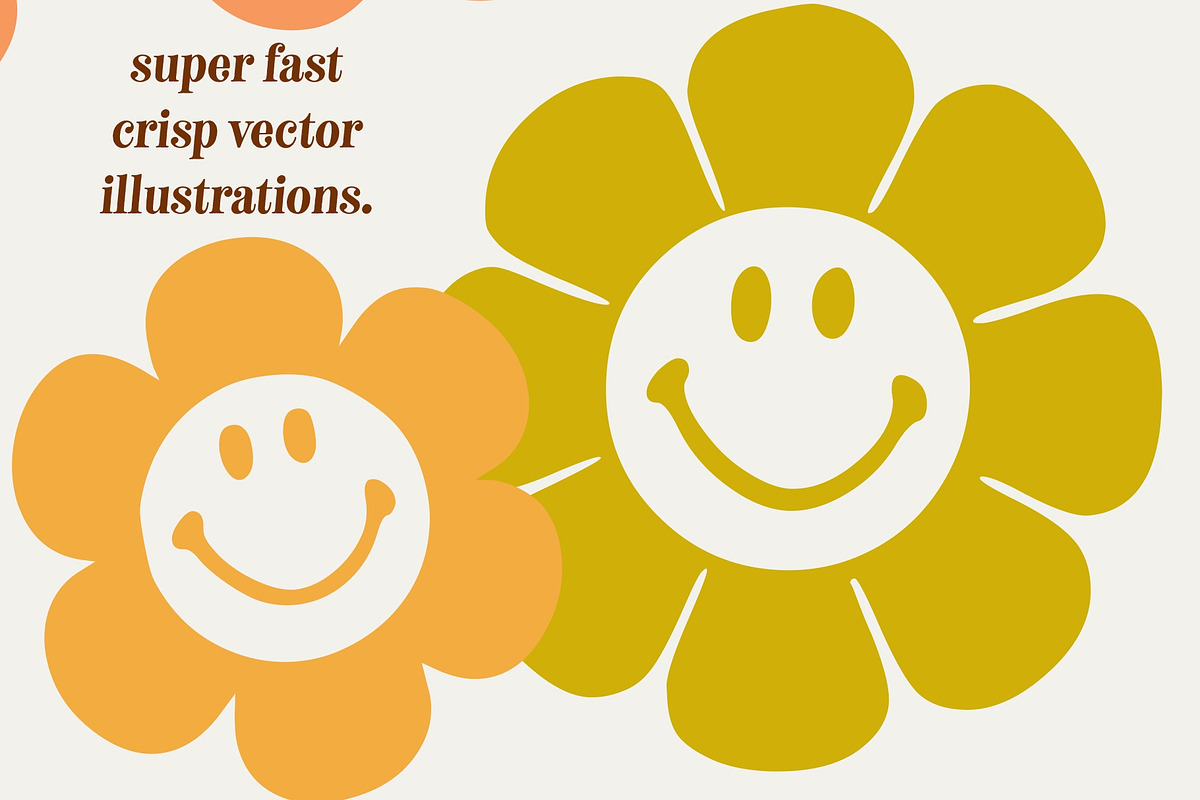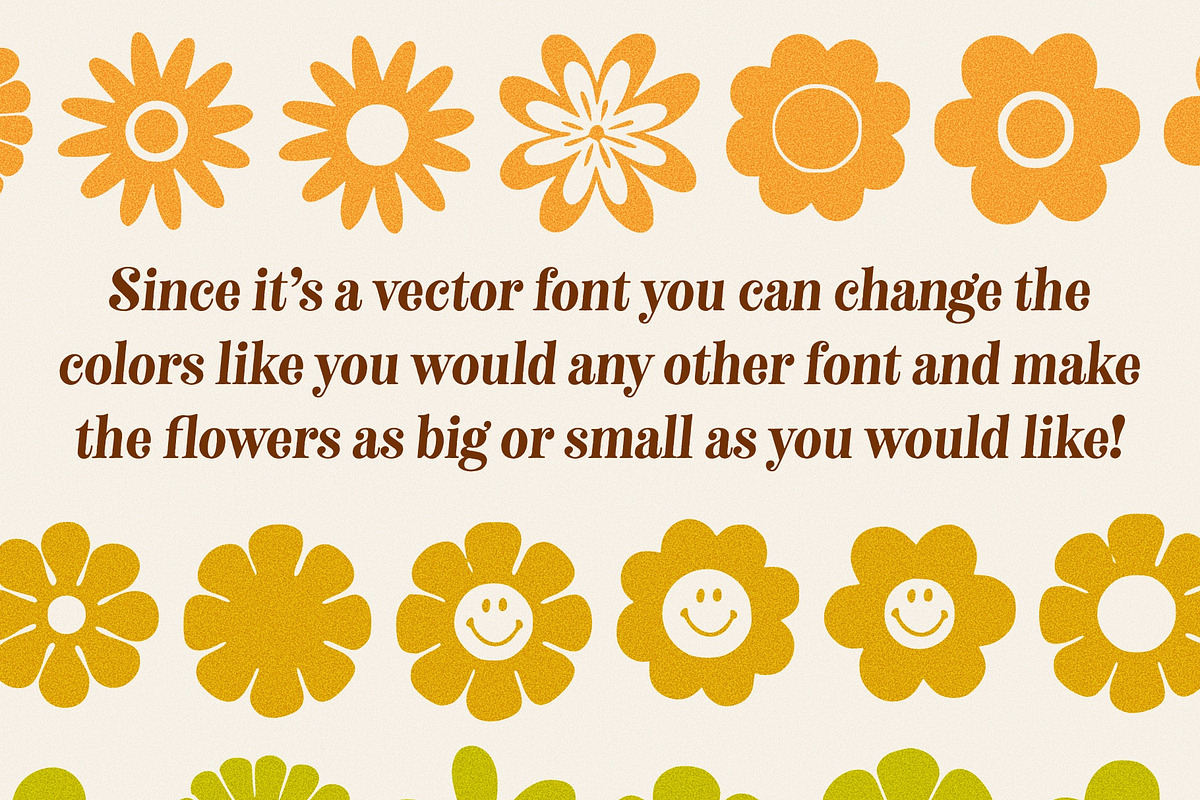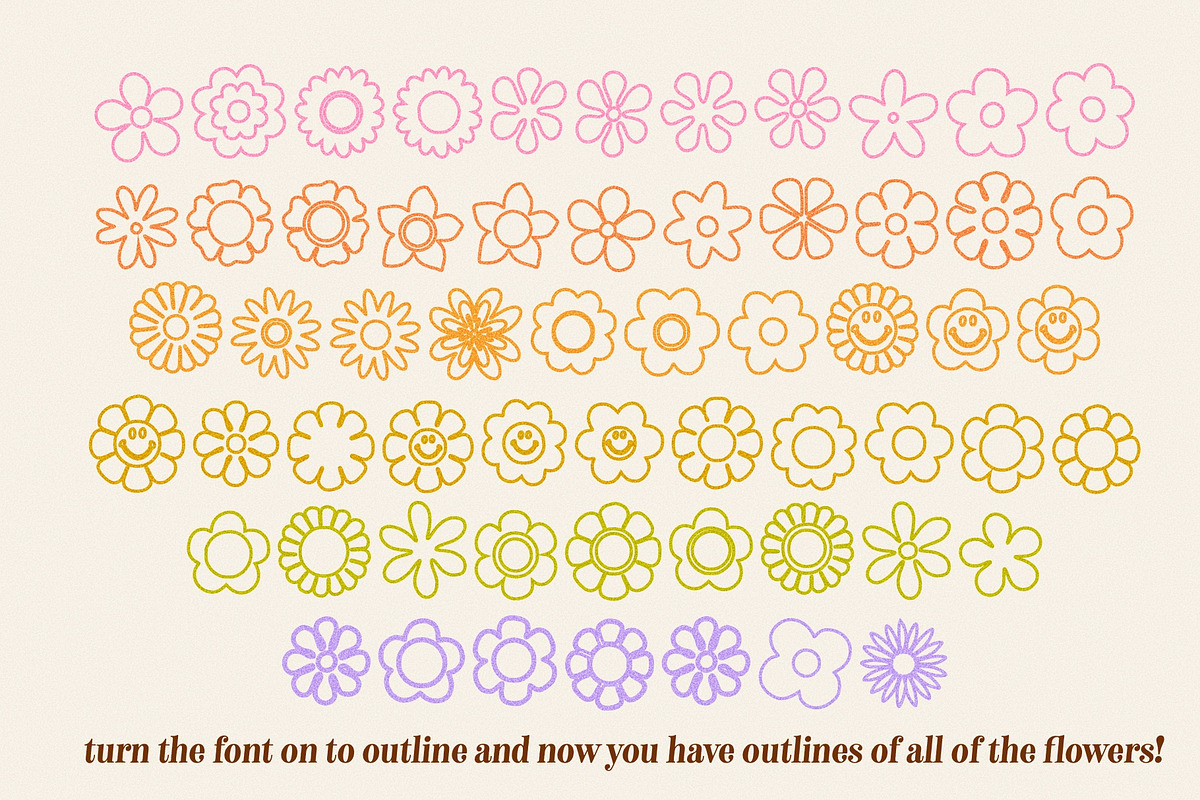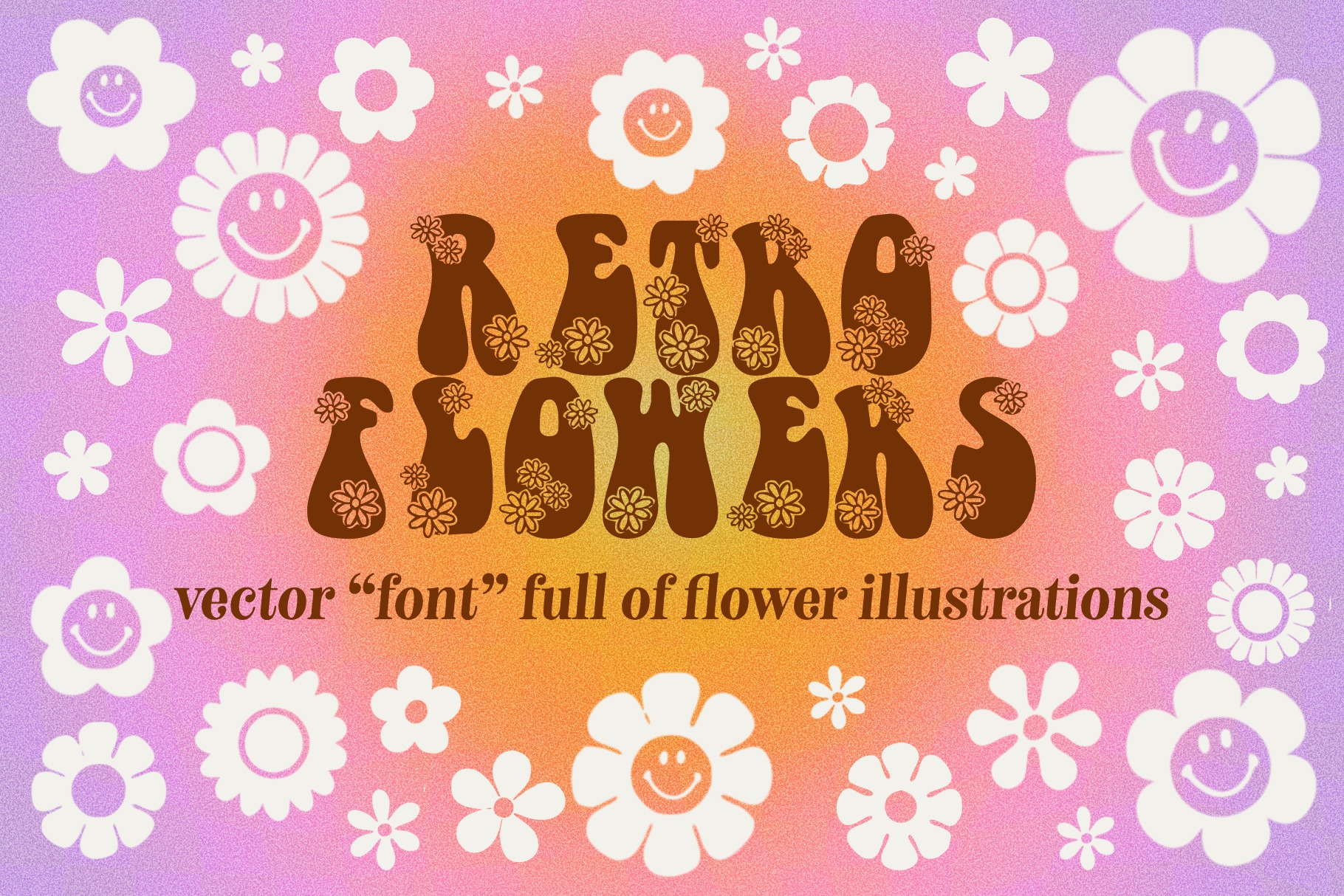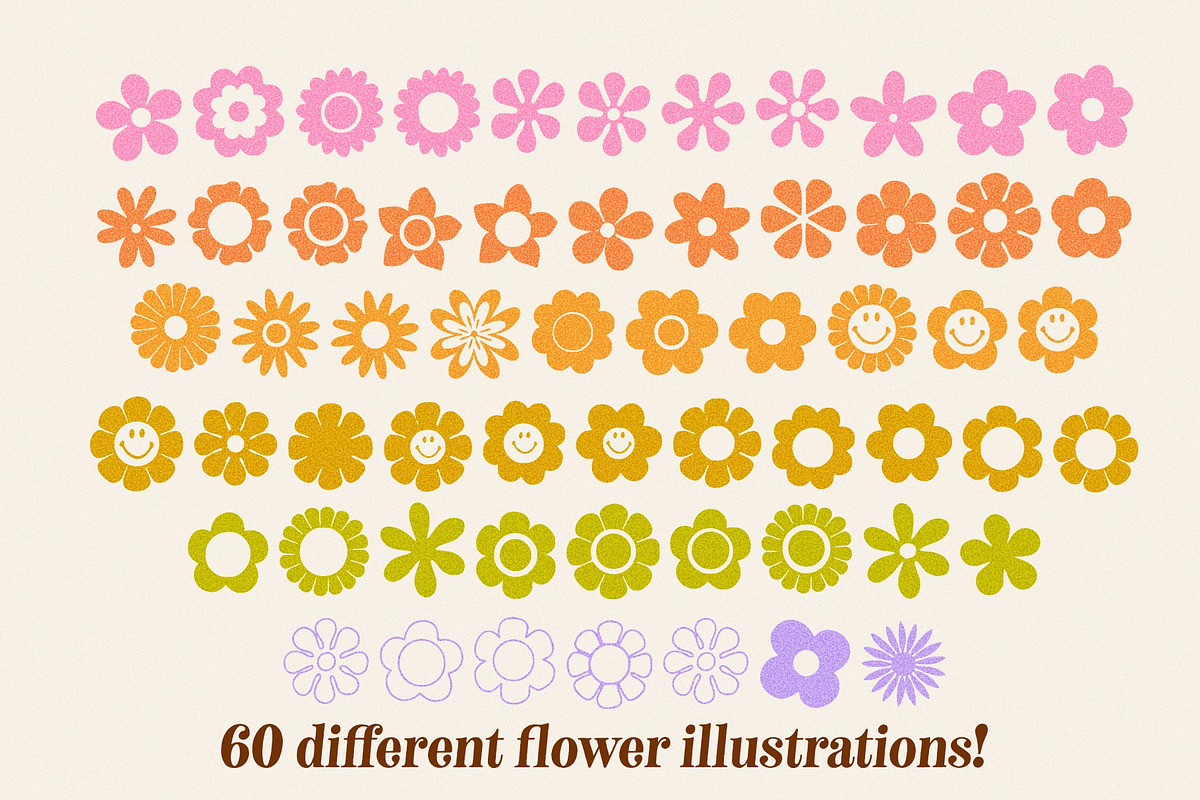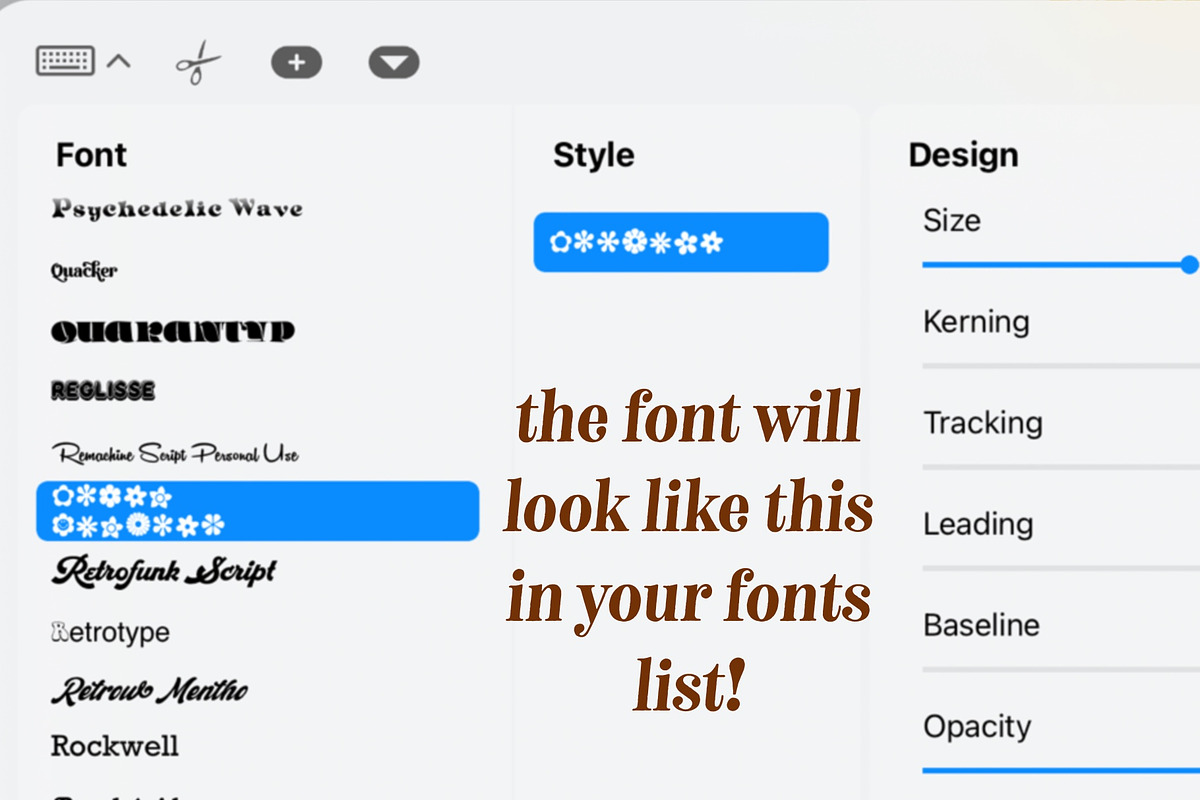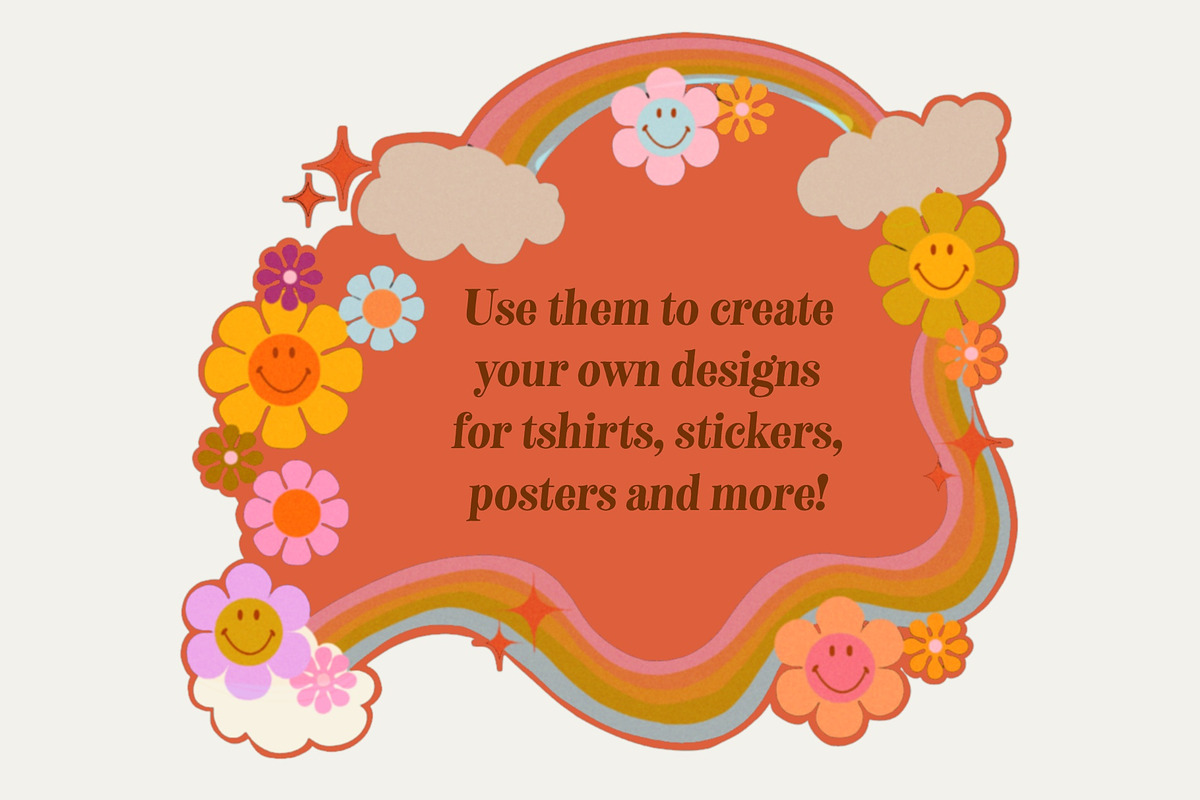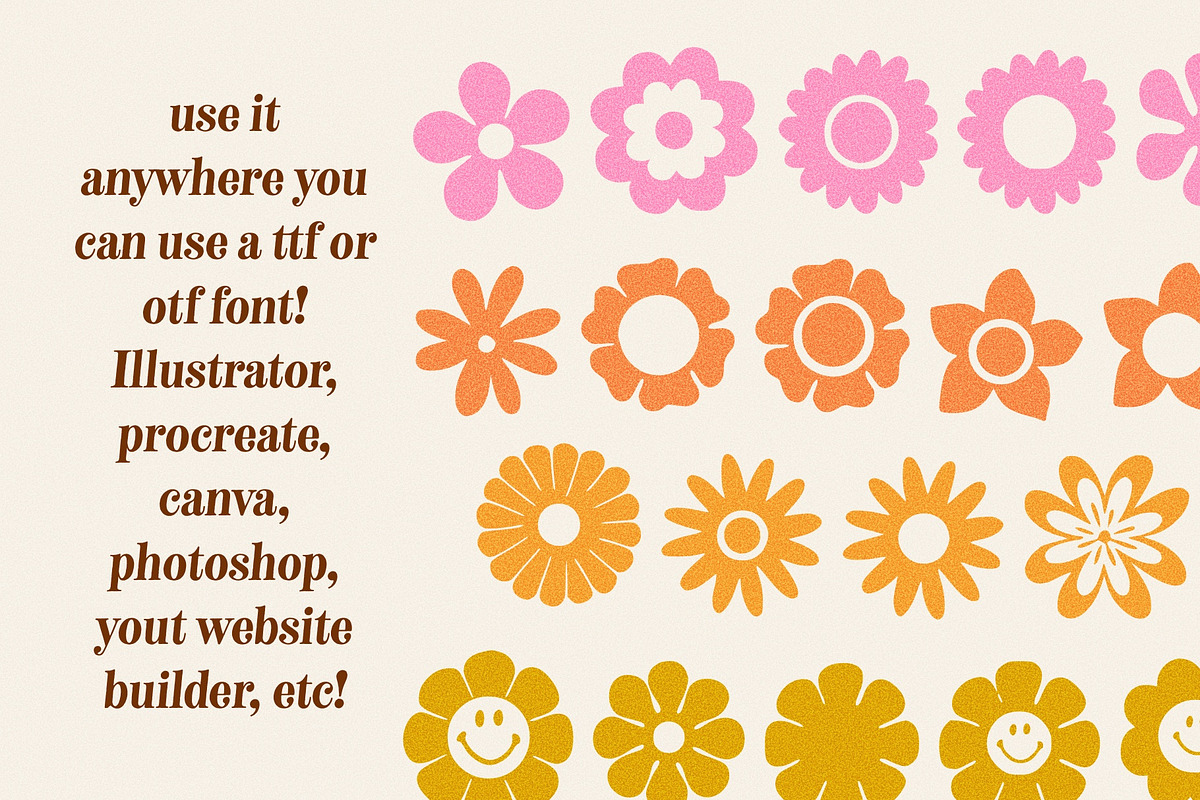
Retro Flowers Illustration Font
Retro flowers illustration font! This is a vector font, but instead of each letter representing that letter, they represent a different retro flower illustration! There are 60 different shapes, and you can type them out like a regular font, size them as big or small as you need them, recolor them and make them your own! Turning the icons into a font is the perfect way to make sure you’re able to use them in any software, and make sure they keep their shape and are able to be recolored easily. It’s a super easy way to quickly add those flowers that can sometimes be a pain to draw, but really make your work pop and fill in those negative spaces so perfectly!
Included is a .ttf anxiety .otf font. There is a flower for each letter in upper and lowercase and then some punctuation, overall 60 different vector flower illustrations!